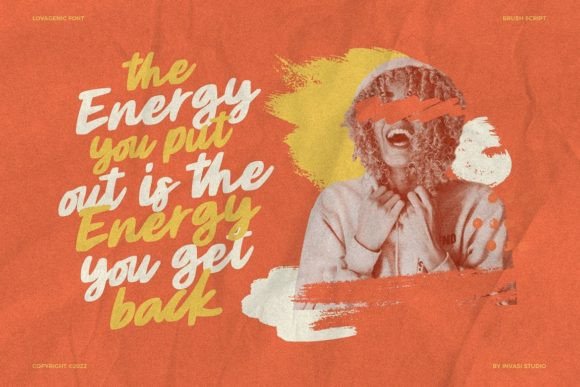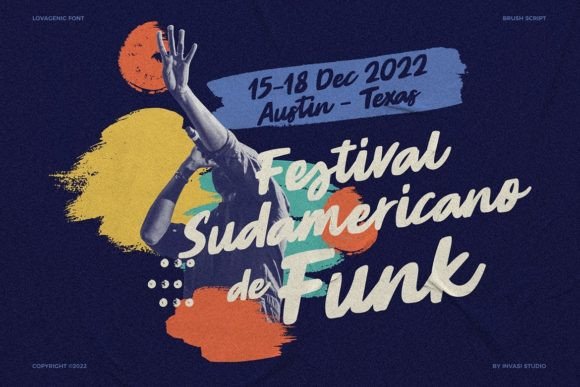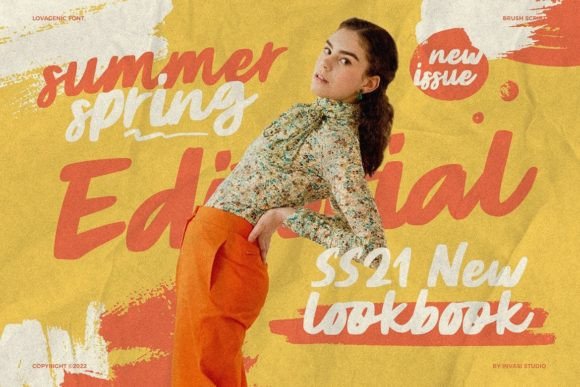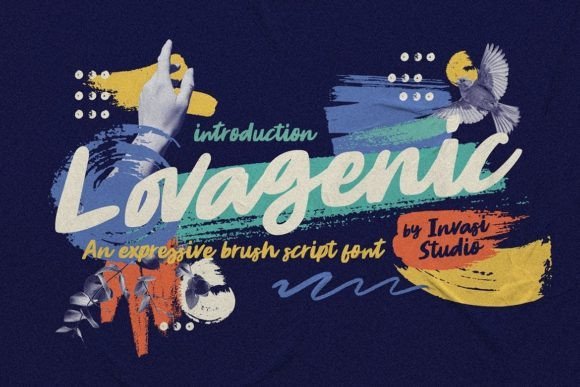
Introduction to Lovagenic Font
Lovagenic is a handmade script font with expressive and organic feels.
Comes with ligatures that can be used to add more personality to your projects Suitable for branding logos, hand lettering, flyers, greeting cards, packaging, or apparel design.